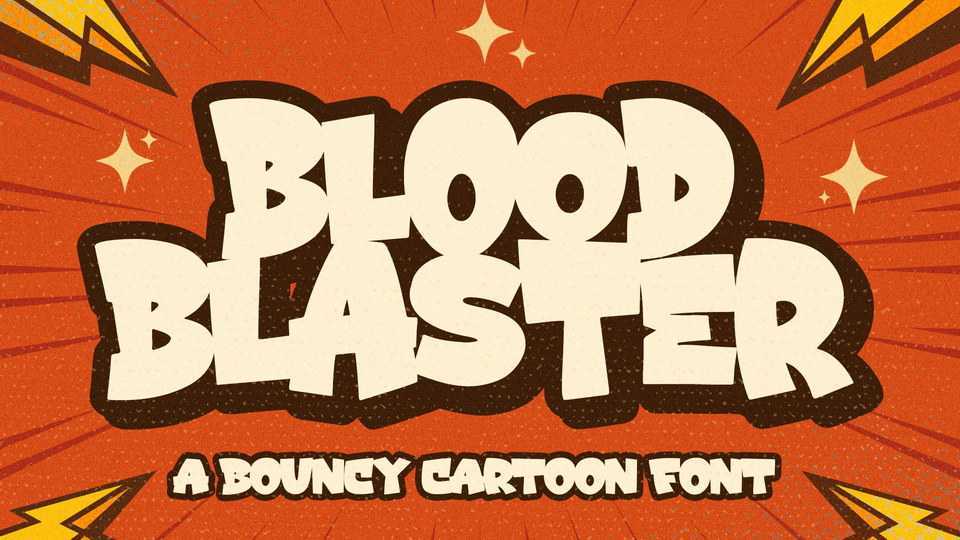
Download Blood Blaster font, a playful bouncy cartoon typeface that stands out and inspires creativity, imagination, and endless fun.
Designer: Blankids Studio